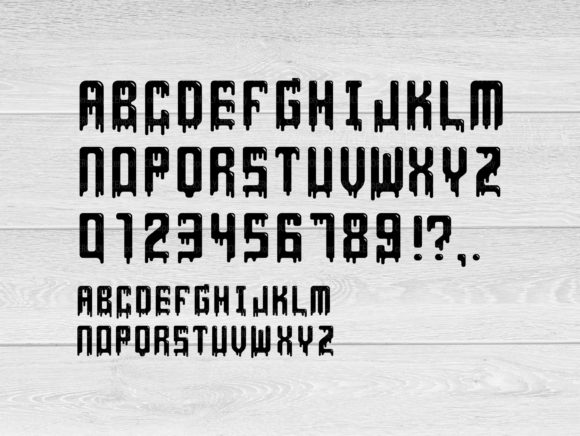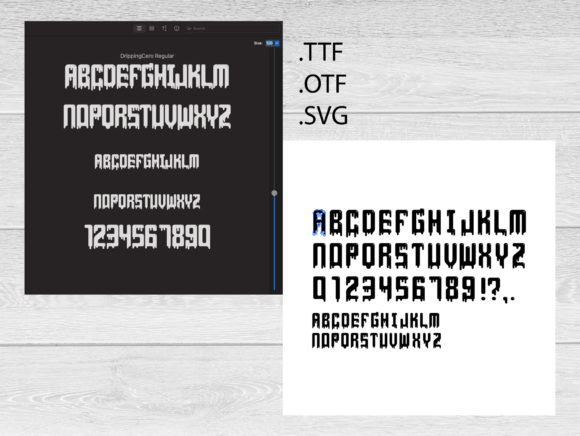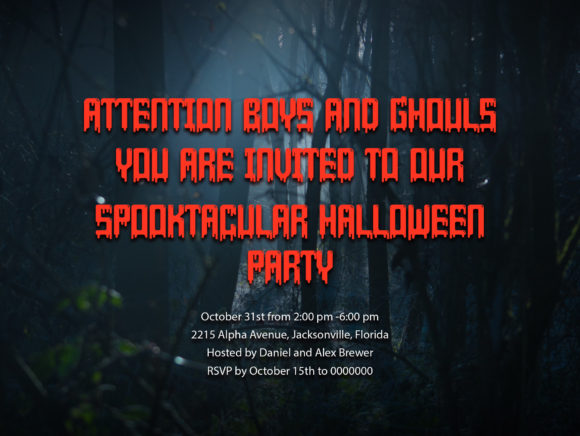
Introducing Drop Dripping Font: The Ultimate Decorative Font for Crafty Designs
Are you tired of using the same old fonts for your crafty projects? Look no further! Drop Dripping Font is an incredibly cool and original decorative font that is sure to take your designs to the next level. With its unique and eye-catching look, this font is perfect for a wide range of crafty ideas, from letterheads and titles to stationery and more.
What Makes Drop Dripping Font So Special?
Drop Dripping Font is a truly one-of-a-kind font that stands out from the crowd. Its distinctive dripping effect gives it a quirky and playful vibe that’s sure to grab attention. Whether you’re a designer, crafter, or DIY enthusiast, this font is sure to inspire your creativity and add a touch of personality to your projects.
Perfect for a Wide Range of Crafty Projects
Drop Dripping Font is incredibly versatile and can be used for a wide range of crafty projects, including:
- Letterheads and titles: Add a touch of elegance and sophistication to your letterheads and titles with this unique font.
- Stationery: Create custom stationery that’s sure to impress with Drop Dripping Font.
- Signs and posters: Make your signs and posters stand out with this eye-catching font.
- DIY crafts: Add a personal touch to your DIY crafts, such as scrapbooking, card making, and more.
Key Features of Drop Dripping Font
Here are some key features that make Drop Dripping Font so special:
- Unique dripping effect: The distinctive dripping effect gives this font its quirky and playful vibe.
- High-quality design: This font is designed with high-quality and precision, ensuring that it looks great in any size or format.
Tips for Using Drop Dripping Font
Here are some tips for using Drop Dripping Font to get the most out of this amazing font:
- Experiment with different sizes: Try using different sizes to see how the font looks in various formats.
- Pair with other fonts: Pair Drop Dripping Font with other fonts to create a unique and interesting look.
- Use it sparingly: Use this font sparingly to add a touch of personality to your designs, rather than overwhelming them.
Drop Dripping Font is an incredibly cool and original decorative font that’s sure to take your crafty designs to the next level. With its unique dripping effect and high-quality design, this font is perfect for a wide range of crafty projects. Whether you’re a designer, crafter, or DIY enthusiast, Drop Dripping Font is a must-have font that’s sure to inspire your creativity and add a touch of personality to your projects.